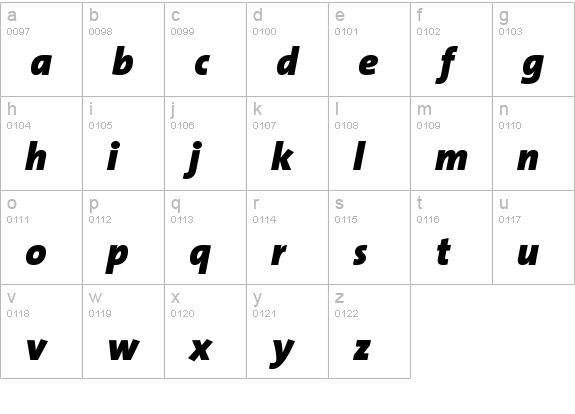
TheSans Black Italic Font Details
TheSans Black Italic is a maximum-weight, dramatic, italic variant in the TheSans typeface family \xE2\x80\x94 well suited to maximum-impact headlines, posters, and packaging.
TheSans Black Italic font is a stunning typographic masterpiece that exudes elegance and sophistication. Its sleek and modern design captures attention and adds a touch of professionalism to any project. The bold and italicized characters are meticulously crafted, showcasing a perfect balance between strength and grace. With its strong presence and distinctive slanted style, TheSans Black Italic font is perfect for creating eye-catching headings, titles, and logos. It effortlessly commands attention and adds a touch of luxury to any design. Whether used for print materials, web design, or branding, this font is sure to make a powerful impact. What makes TheSans Black Italic font even more remarkable is that it is freely available to download at FontsMarket.com. This means that designers and creatives can access this exceptional font without any cost, making it an invaluable resource for both personal and commercial projects. The versatility of TheSans Black Italic font allows it to seamlessly adapt to various design contexts. Its legibility and readability make it suitable for both small and large text sizes, ensuring that every word is effortlessly understood and appreciated. The font's clean lines and sharp edges add a contemporary touch, while the italicized slant adds a sense of dynamism and energy. TheSans Black Italic font is a must-have for designers who want to make a bold statement while maintaining elegance and style. Its timeless appeal and versatility make it a valuable addition to any font library. Download TheSans Black Italic font for free at FontsMarket.com and unleash its transformative power in your next design project.